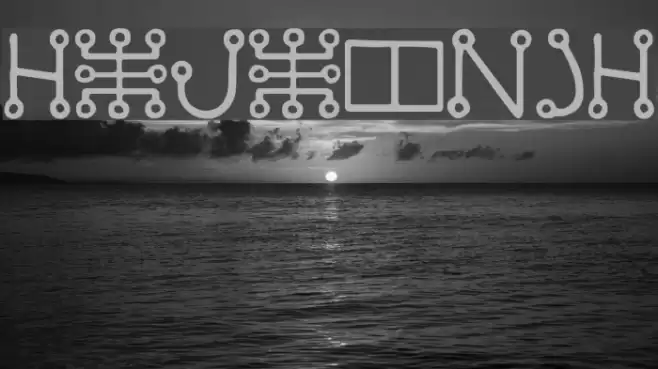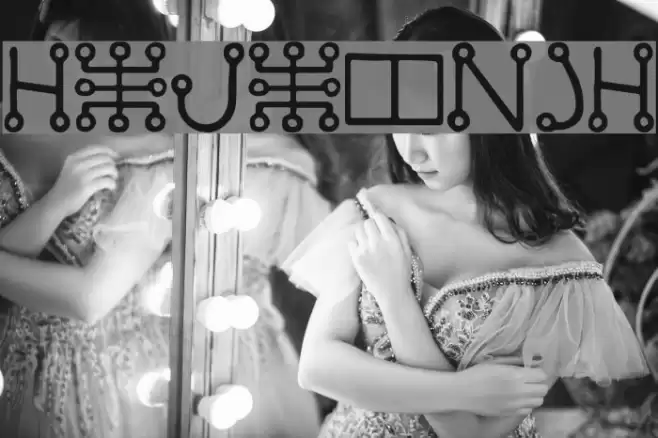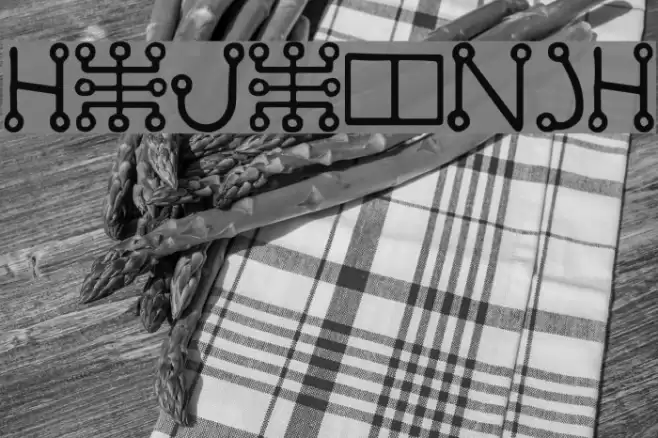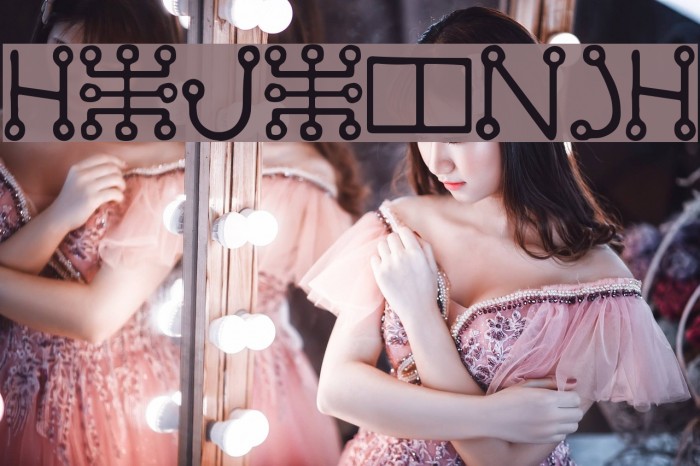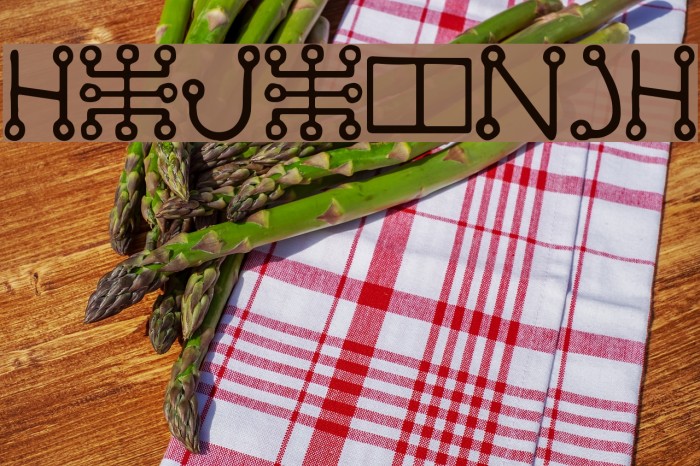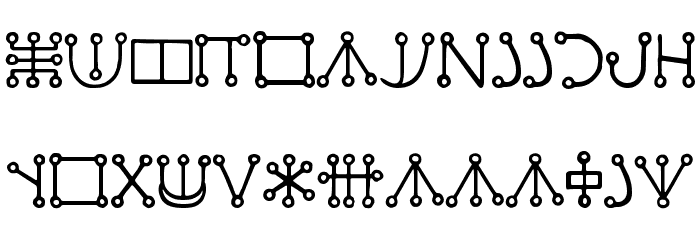
Malachim Font
Malachim Description
This font features a highly decorative and symbolic style, reminiscent of ancient scripts or mystical alphabets. Each character is composed of geometric shapes and lines, often incorporating circles and dots that add to its ornamental appearance. The design is consistent across all characters, maintaining a uniform aesthetic that suggests a sense of mystery and esoteric knowledge. The characters are bold and striking, making them stand out distinctly. This font does not follow traditional alphabetic forms, instead presenting a unique set of symbols that could be used for artistic or thematic purposes.
A decorative, symbolic font with geometric shapes and mystical aesthetics from Non-Latin fonts.
- Proposed Projects: Ideal for fantasy-themed projects, mystical or esoteric branding, artistic designs, or any creative work requiring a unique and symbolic typeface.
- Overall Style: Mystical, Esoteric, Artistic
- Use Case: Logos, Artistic designs, Thematic projects